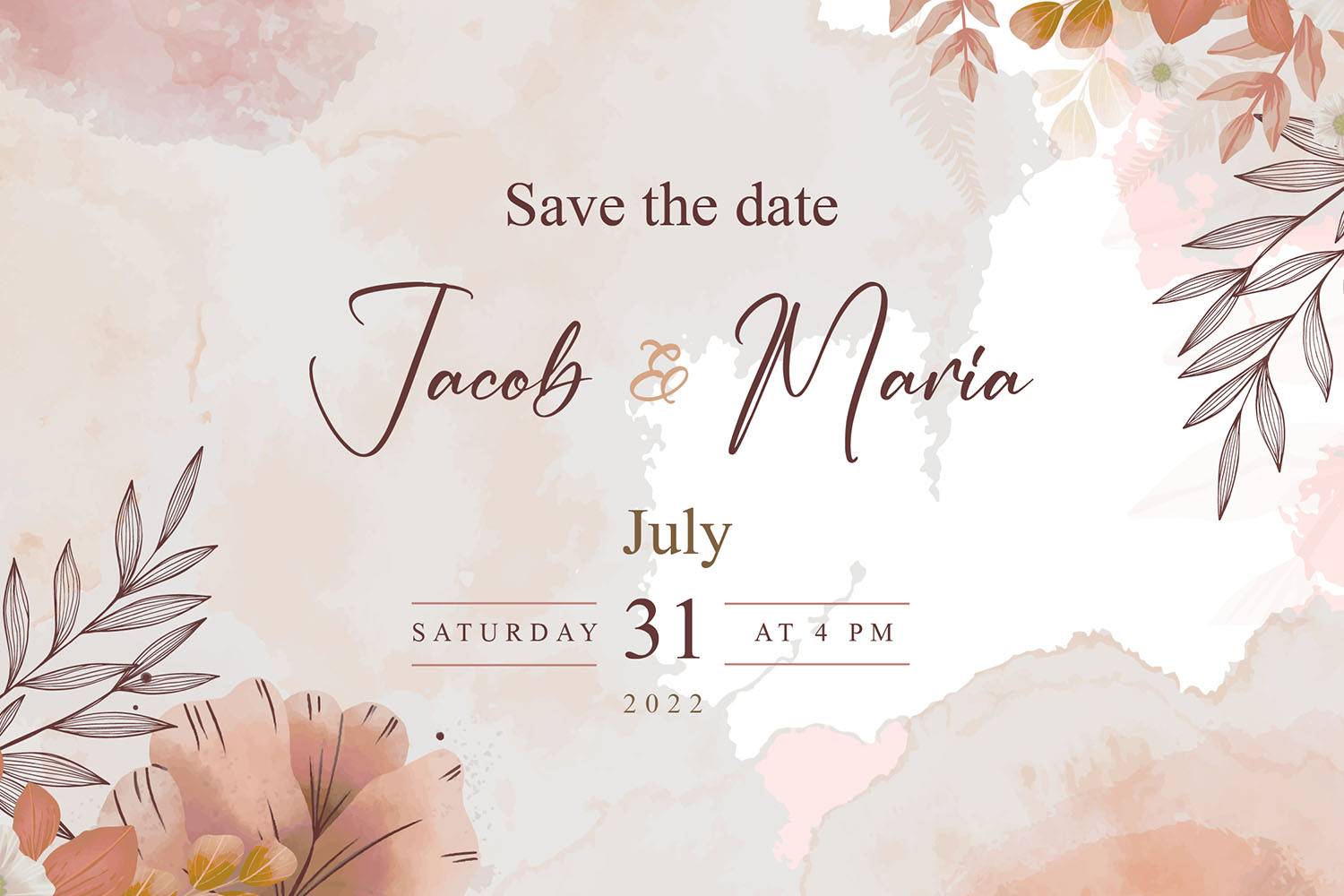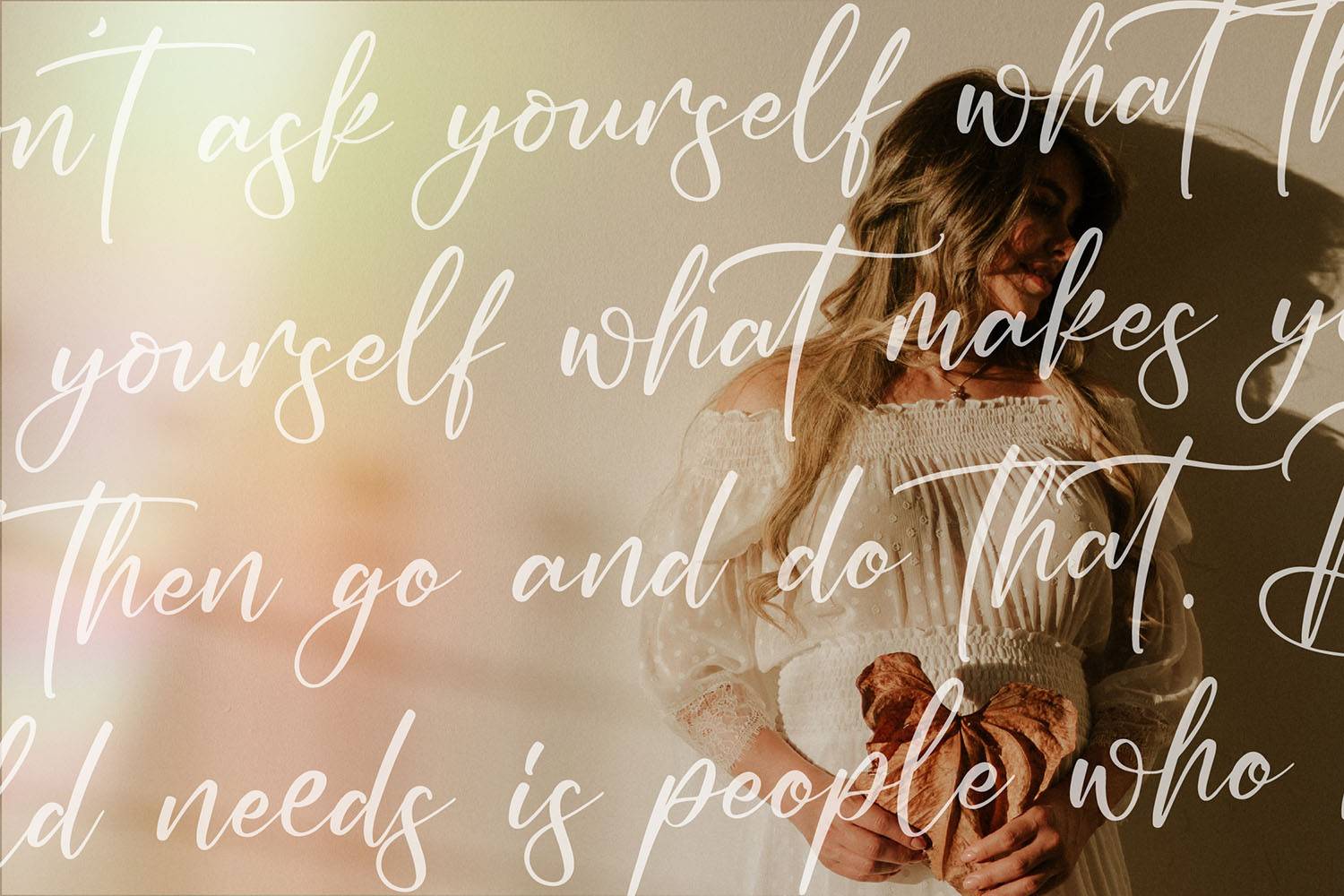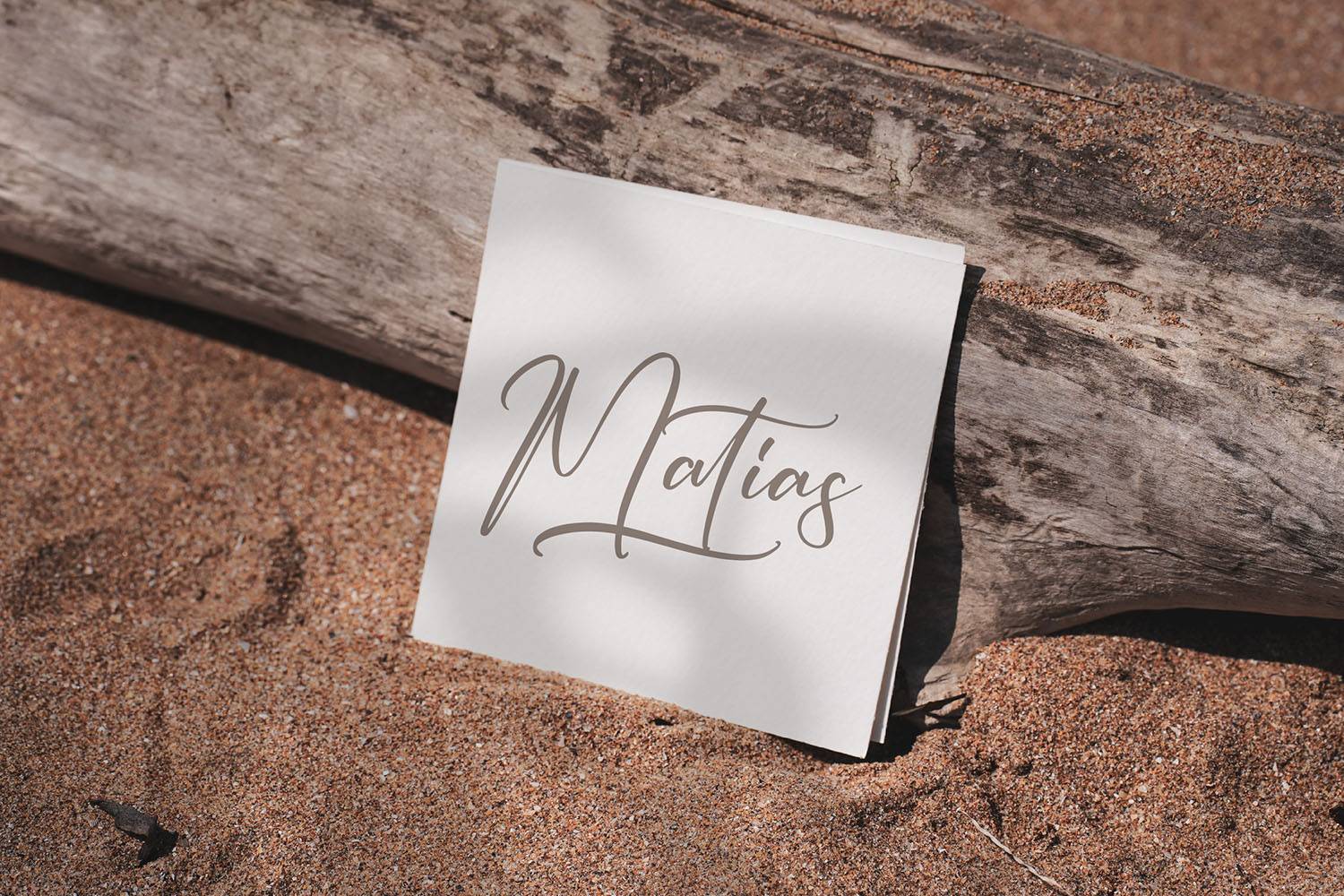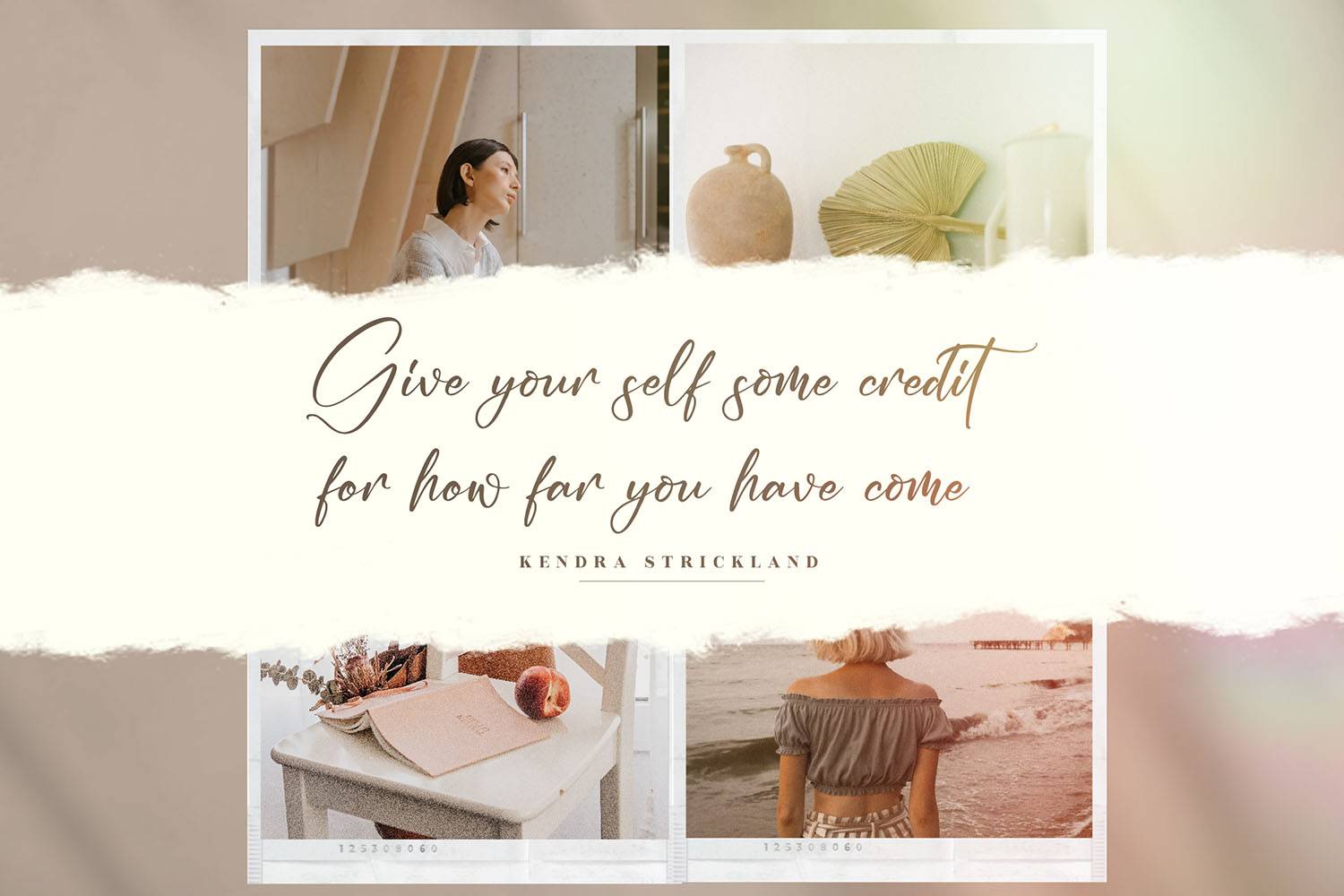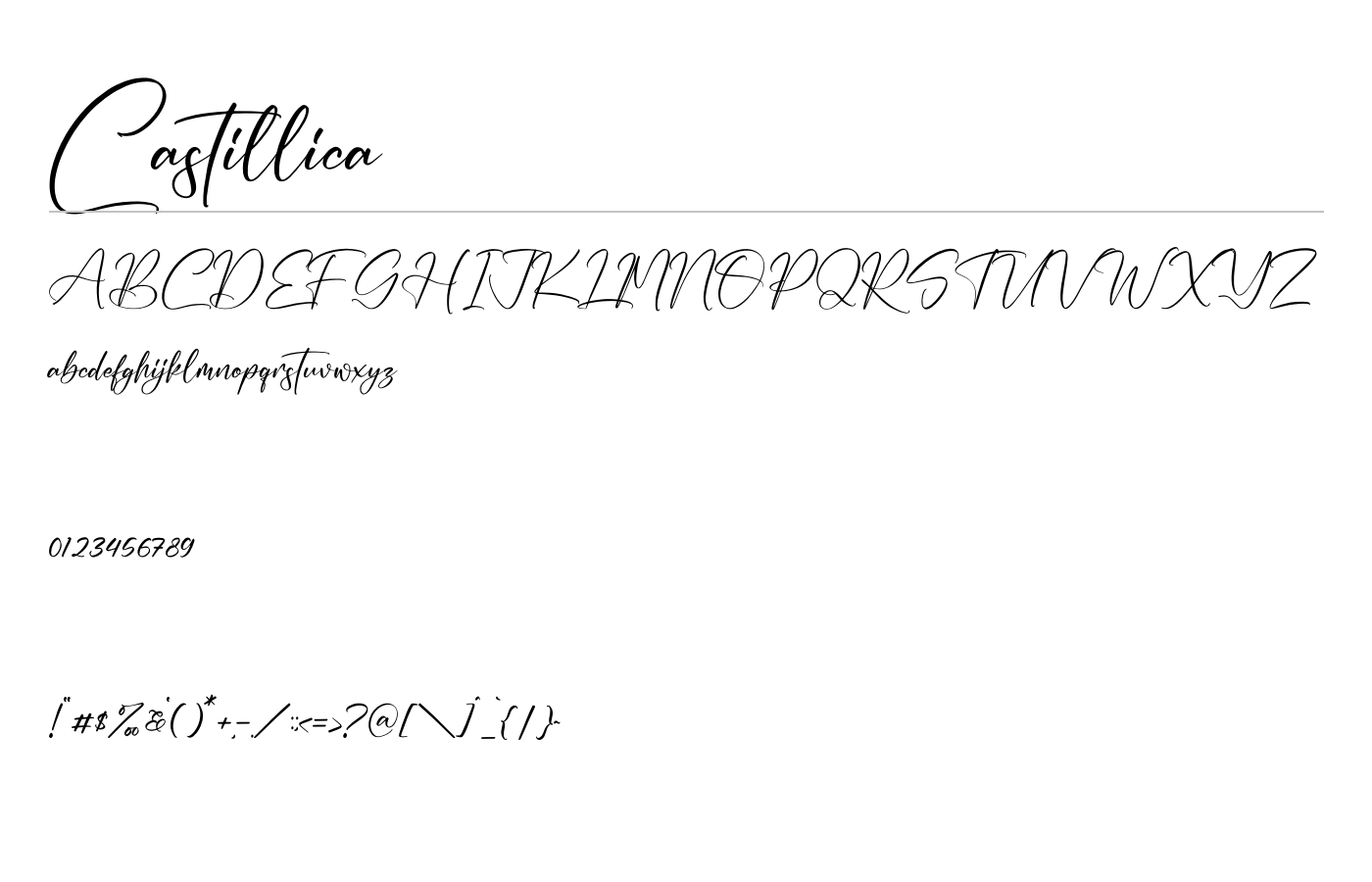
Castillica is a delicate, elegant script font with fine, flowing lines and a graceful, handwritten feel. Its slender strokes and stylish flourishes give it a luxurious and sophisticated personality, making it perfect for branding, invitations, and any design needing a personal, refined touch. This font works best in large sizes for headlines or logos where its intricate details can truly shine.
Castillica Font
About Castillica Font